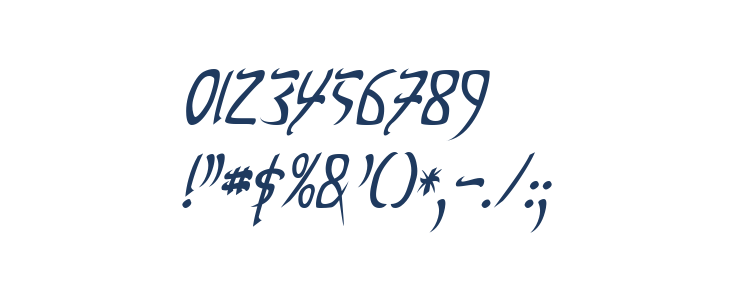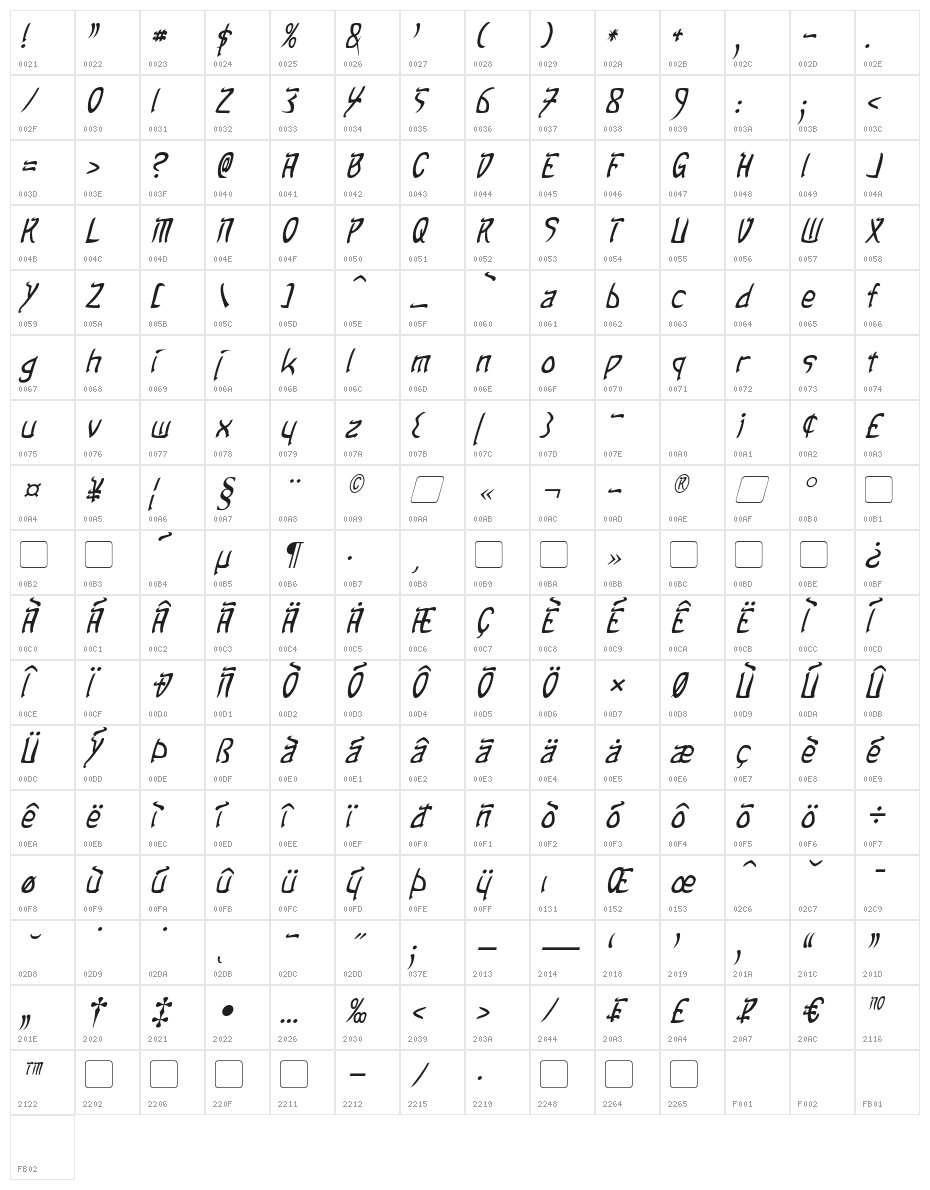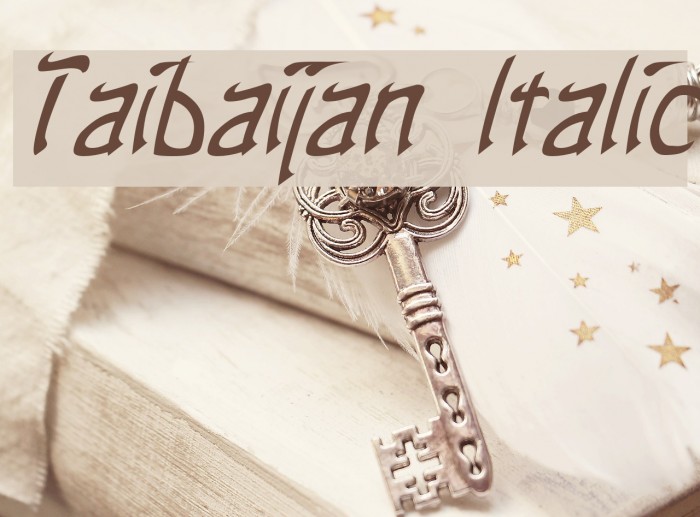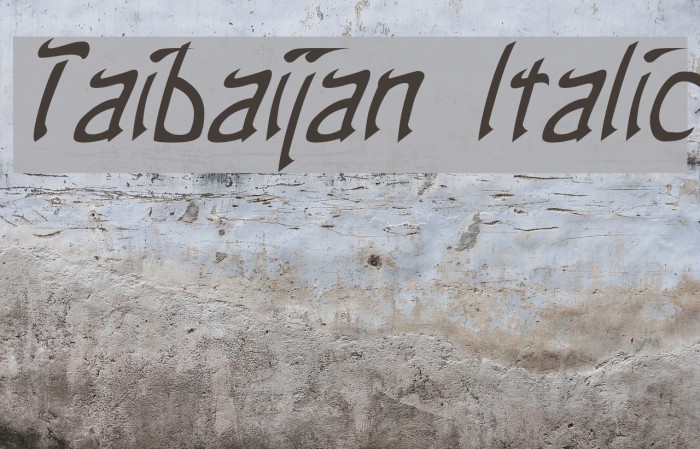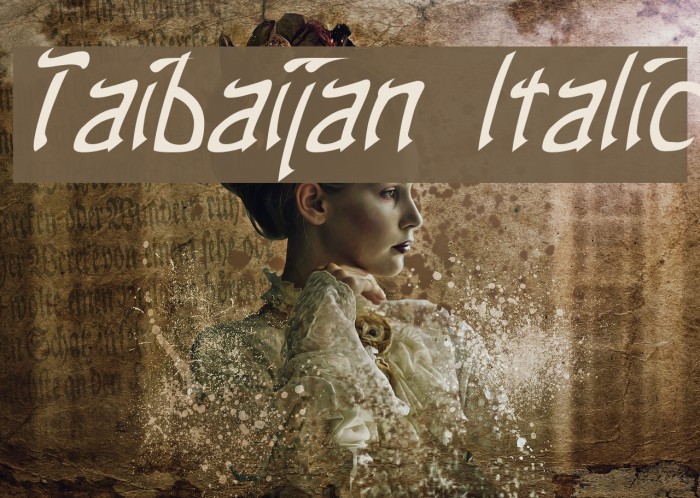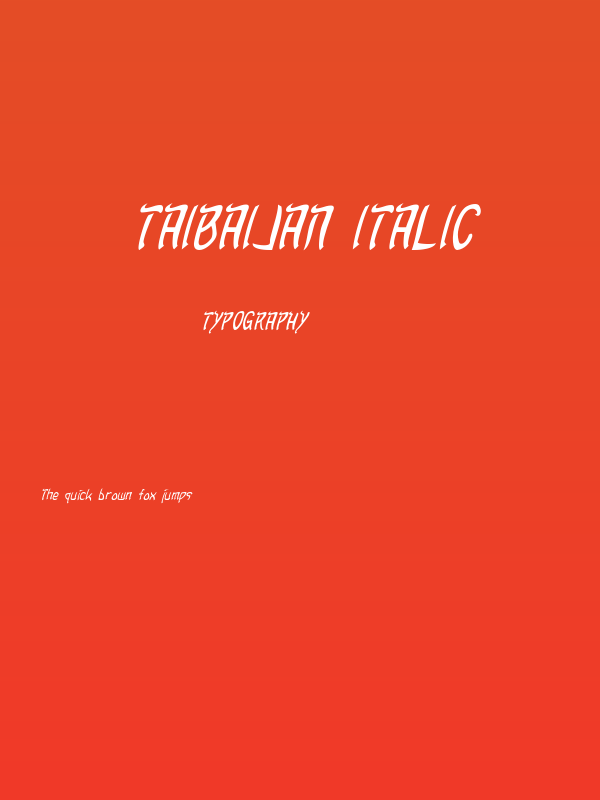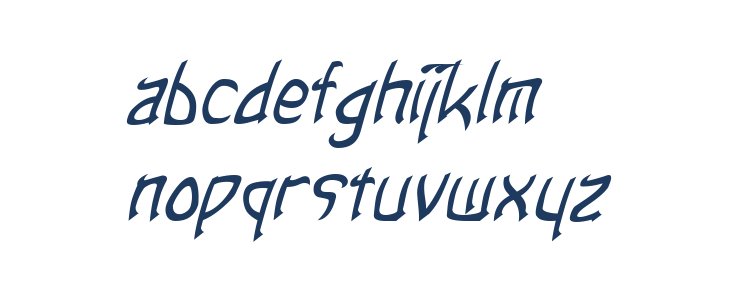
Taibaijan Italic Font
Taibaijan Italic Description
This font features a dynamic and expressive style with a strong italic slant, giving it a sense of movement and energy. The characters are bold and slightly condensed, with sharp, angular strokes that create a striking visual impact. The uppercase letters have a distinctive flair, while the lowercase letters maintain a consistent flow, enhancing readability. The numerals are uniquely styled, complementing the overall aesthetic. Special characters are integrated seamlessly, adding versatility to the font's usage. The font's design is both modern and artistic, making it suitable for creative and eye-catching projects.
| Overall Style | Modern, Artistic |
| Proposed Projects | Ideal for branding, posters, headlines, and any design requiring a bold, artistic touch. |